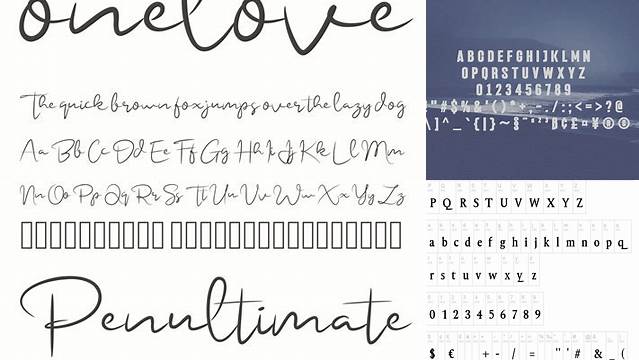
Introduction to Onelove Font
Hey guys! Are you on the hunt for a font that just oozes love, charm, and a sprinkle of whimsy? Well, let me introduce you to the Onelove font! This typeface isn't just any font; it's a delightful creation that can add a touch of magic to your designs. Whether you're crafting heartfelt invitations, designing a sweet logo, or putting together a cozy website, Onelove font might just be the secret ingredient you've been searching for. This font, often characterized by its flowing lines, elegant curves, and overall romantic feel, is a versatile choice for a wide array of projects. The Onelove font family typically includes a range of styles, from regular to bold, and sometimes even italic versions, providing designers with the flexibility to use it in various contexts. Its unique charm lies in its ability to evoke emotions, making it particularly well-suited for projects related to love, relationships, and special occasions. When you choose Onelove, you're not just selecting a font; you're choosing a typeface that speaks to the heart. Think about it – the right font can transform a simple message into a memorable experience. The Onelove font achieves this by combining legibility with personality, ensuring that your text is both readable and visually appealing. Its strokes are designed to catch the eye, while its overall aesthetic contributes to a warm and inviting feel. This makes it an excellent choice for anything from wedding invitations to branding materials for businesses that want to convey a sense of care and connection. One of the key reasons why Onelove stands out is its adaptability. It works wonderfully in headlines, body text, and even in smaller details like captions and labels. This versatility means that you can use it consistently throughout your project, creating a cohesive and harmonious design. Plus, with the different styles available within the font family, you have the freedom to create visual hierarchy and add emphasis where needed. In essence, Onelove font is more than just a set of characters; it's a design tool that can help you tell your story in a way that resonates with your audience. So, whether you're a seasoned designer or just starting out, exploring the possibilities of Onelove can open up a world of creative opportunities. Let's dive deeper into what makes this font so special and how you can make the most of it in your projects.
Key Features and Characteristics of Onelove Font
So, what makes the Onelove font stand out from the crowd? Let's break down its key features and characteristics. First off, Onelove often boasts a handwritten or script-like style. Think elegant loops, delicate swashes, and a generally flowing appearance. This gives it a personal, almost intimate feel, like a handwritten note from someone special. The flowing script of the Onelove font adds a touch of elegance and sophistication to any design. This characteristic makes it perfect for projects that require a personal and heartfelt touch. Whether you're designing wedding invitations, thank you cards, or branding materials for a boutique, the Onelove font can help you convey a sense of warmth and authenticity. Its unique curves and flourishes make each letter a work of art, adding a distinctive flair to your text. Another important characteristic is its versatility. While it's often used for romantic or feminine designs, Onelove can also be surprisingly effective in other contexts. Imagine using it for a logo, a website header, or even in packaging design. The key is to consider the overall tone and message you want to convey. The font's adaptability allows it to seamlessly integrate into a variety of design styles, from modern and minimalist to vintage and rustic. This flexibility makes it a valuable asset for designers who want to create unique and memorable visuals. Moreover, Onelove often comes in various weights and styles, such as regular, bold, and italic. This gives you even more flexibility when it comes to using it in your designs. You can use different weights to create visual hierarchy, emphasize key words, or simply add visual interest. The availability of different styles ensures that the font remains legible and visually appealing across various applications. For example, a bold version can be used for headings, while a regular version is suitable for body text. This allows you to maintain consistency while adding depth and dimension to your design. Beyond its aesthetic appeal, Onelove is also designed with legibility in mind. While it’s certainly stylish, it doesn’t sacrifice readability for looks. The letters are typically well-formed and spaced, making it easy to read even in longer passages of text. This balance between style and functionality is crucial for ensuring that your message is effectively communicated. After all, a beautiful font is only as good as its ability to convey your intended meaning. Furthermore, the Onelove font often includes a variety of ligatures and alternative characters. Ligatures are special characters that combine two or more letters into a single glyph, adding a touch of elegance and uniqueness to the text. Alternative characters provide even more stylistic options, allowing you to customize the look of your typography. These features can help you create truly unique designs that stand out from the crowd. In conclusion, the Onelove font is more than just a pretty typeface. It's a versatile design tool that combines style, legibility, and personality. Its handwritten-style appearance, availability in various weights and styles, and inclusion of ligatures and alternative characters make it a valuable asset for any designer. Whether you're working on a personal project or a professional design, Onelove can help you convey your message with heart and style.
Design Ideas and Inspiration Using Onelove Font
Okay, so you've got the Onelove font installed and you're itching to use it, but maybe you're feeling a little creatively stuck? No worries! Let's brainstorm some design ideas and get those creative juices flowing. The Onelove font is so versatile, it can be used in tons of different projects. From wedding invitations to logo designs, this font can add that special touch. One of the most popular uses for Onelove is in wedding invitations and stationery. Its elegant, script-like style lends itself perfectly to creating a romantic and sophisticated feel. Imagine beautiful invitations with the couple's names written in Onelove, paired with delicate floral accents. You could also use it for save-the-dates, thank-you cards, and even wedding signage. The font's flowing lines and graceful curves will add a touch of timeless elegance to your special day. Another fantastic application for Onelove is in logo design. If you're creating a brand that wants to convey a sense of warmth, creativity, or femininity, Onelove can be an excellent choice. Think about businesses like bakeries, boutiques, or even wellness studios. A logo featuring Onelove can help create a memorable and inviting brand identity. When using Onelove in a logo, it's important to consider the overall aesthetic and ensure that the font complements the other design elements. For example, you might pair it with a clean, sans-serif font for a modern and balanced look. Onelove is also a great choice for creating beautiful and heartfelt greeting cards. Whether it's a birthday card, a thank-you note, or a simple "thinking of you" card, Onelove can add a personal and touching element. The handwritten-style appearance of the font makes it feel like you've taken the time to write a special message just for the recipient. You can use Onelove for the main message or for adding a signature or personal touch to the card. Social media graphics are another area where Onelove can shine. In today's digital world, it's essential to create visually appealing content that grabs attention. Using Onelove in your social media posts can help you stand out from the crowd and create a cohesive brand aesthetic. You can use it for quotes, announcements, or even for adding a touch of personality to your profile. Just remember to use it sparingly and ensure that the text remains legible on smaller screens. If you're a blogger or website owner, Onelove can be a fantastic choice for headings and titles. Its elegant style can help create a visually appealing and engaging website design. Just make sure to pair it with a readable body font to ensure that your content is easy to consume. Using Onelove for headings can add a touch of sophistication and personality to your website. Finally, don't forget about print materials like posters, flyers, and brochures. Onelove can be used to create eye-catching designs that grab attention. Whether you're promoting an event, a product, or a service, Onelove can help you create a visual message that resonates with your audience. Consider using it for headlines, subheadings, or even for adding a calligraphic touch to your design. In summary, the design possibilities with Onelove are endless. From wedding invitations to social media graphics, this versatile font can add a touch of elegance and personality to any project. So, go ahead, experiment, and let your creativity soar!
Final Thoughts on Onelove Font: Is It Right for Your Project?
So, we've explored the wonderful world of the Onelove font, haven't we? We've talked about its key features, where to find it for free, how to install it, and even some cool design ideas. But now, let's get down to the nitty-gritty: is Onelove the right font for your project? The decision to use a particular font is a crucial one in any design project. A font is more than just a set of characters; it's a visual voice that speaks to your audience and conveys the tone and message of your design. Therefore, it's essential to carefully consider the personality of the font and how it aligns with the overall goals of your project. The Onelove font, with its elegant script-like style, is a beautiful and versatile typeface that can add a touch of sophistication and personality to a wide range of designs. However, like any font, it's not a one-size-fits-all solution. To determine if Onelove is the right choice for your project, you need to consider several factors, including the target audience, the project's purpose, and the overall aesthetic you want to achieve. First and foremost, think about your target audience. Who are you trying to reach with your design? What are their preferences and expectations? Onelove's romantic and feminine feel might be perfect for projects targeting women or those with an appreciation for elegant design. However, it might not be the best choice for projects aimed at a more masculine or corporate audience. If you're unsure, it's always a good idea to test your designs with a sample audience to gather feedback. Next, consider the purpose of your project. What message are you trying to convey? What emotions do you want to evoke? Onelove's warm and heartfelt style makes it an excellent choice for projects related to love, relationships, and special occasions. It's perfect for wedding invitations, greeting cards, and branding materials for businesses that want to convey a sense of care and connection. However, if your project requires a more serious or professional tone, you might want to consider a different font. The overall aesthetic of your project is another important factor to consider. Onelove's elegant script style pairs well with designs that have a romantic, vintage, or whimsical feel. It can also be used effectively in more modern designs, but it's important to balance it with other design elements to avoid creating a look that's too cluttered or overwhelming. Consider the colors, imagery, and other fonts you'll be using in your project and how they work together with Onelove. Legibility is always a crucial factor when choosing a font. While Onelove is a beautiful font, its script-like style can sometimes make it challenging to read, especially in longer passages of text. If you're using Onelove for body text, make sure to choose a font size and spacing that ensures legibility. It's also a good idea to use a complementary font for body text that's easier to read. Finally, don't be afraid to experiment. Try out Onelove in different contexts and see how it looks. Mix and match it with other fonts and design elements to create unique and eye-catching designs. The best way to determine if a font is right for your project is to see it in action. In conclusion, the Onelove font is a beautiful and versatile typeface that can add a touch of elegance and personality to your designs. However, it's essential to carefully consider your project's goals and target audience before deciding if it's the right choice. By considering factors like the target audience, project purpose, overall aesthetic, and legibility, you can make an informed decision and create designs that resonate with your audience. So, go ahead, give Onelove a try, and see if it's the perfect fit for your next project!